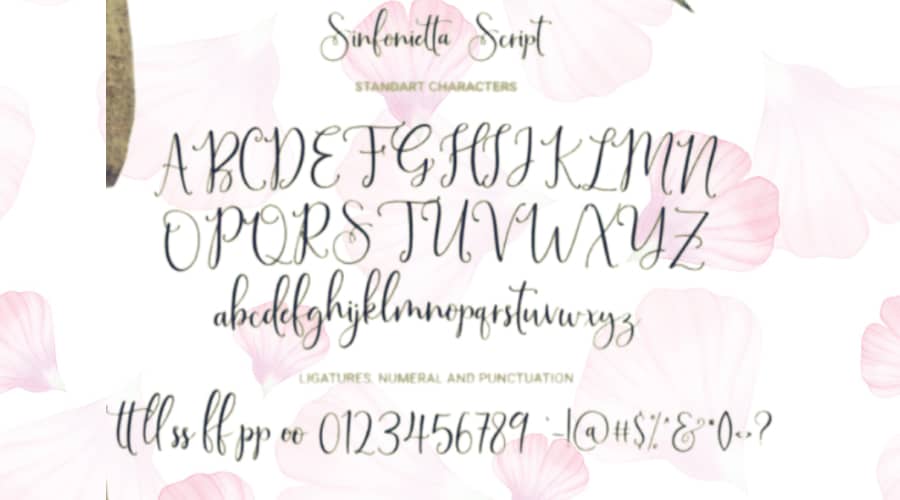
Sinfonietta Handwritten Script Font
We are presenting Sinfonietta Handwritten Script Font! It’s a modern handwritten script with swashes and an appealing new typeface. Jmtypestudio designed and published it on June 22, 2020.
This typeface was made specifically for those who require a touch of elegance to develop your next project with excellent outcomes. sinfonietta Font is a stunning and intriguing typeface that comes with a suitable line for a variety of uses. Titles, signatures, logos, communications, wedding invites, letterheads, nameplates, labels, bulletins, posters, badges, Branding, Greeting Cards, and so on.
| Name | Sinfonietta Handwritten Script Font |
| Style | Script Font, Handwritten font |
| Designer | Jmtypestudio |